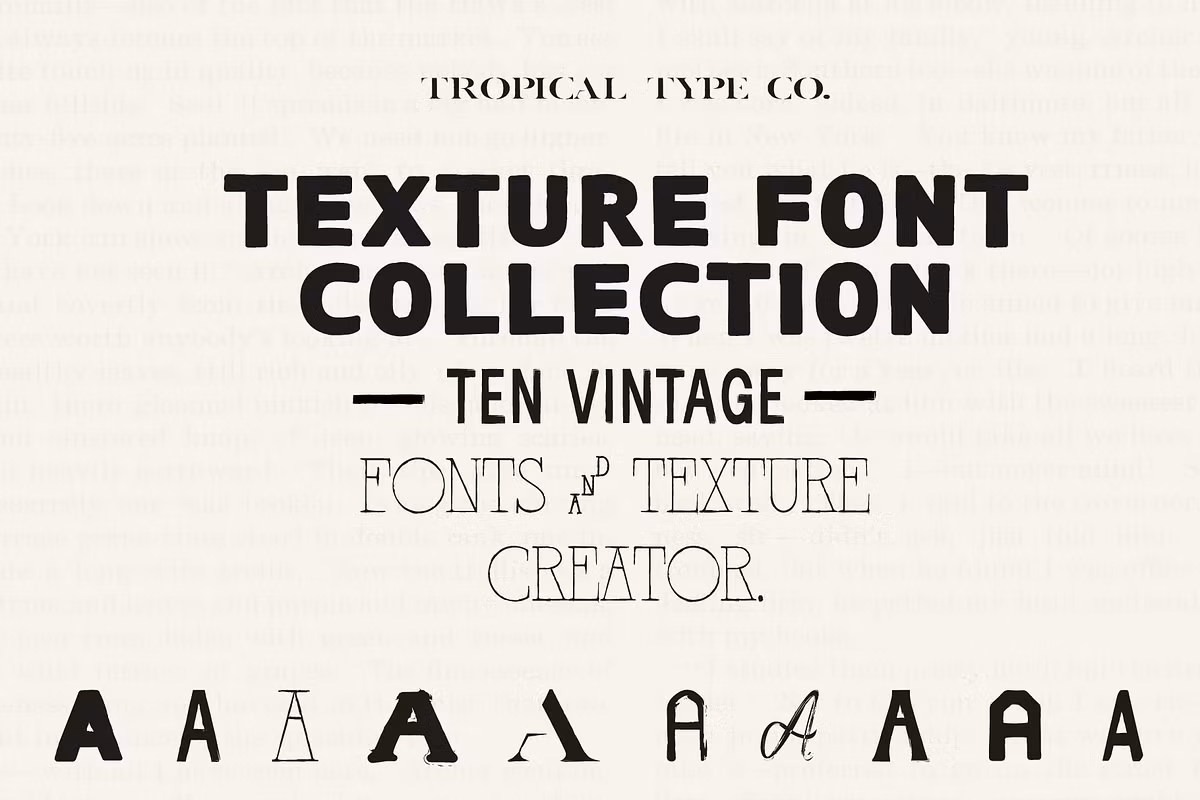
TEXTURE FONT COLLECTION (10 fonts) Free Download
TEXTURE FONT COLLECTION (10 Fonts) Free Download is an extensive and dynamic bundle featuring 10 unique fonts, each designed to add a distinctive texture and style to your design projects. Whether you're working on logos, posters, vintage designs, or branding, this collection offers a variety of options to suit your creative needs, from gritty, distressed textures to clean and polished finishes.
The fonts in this collection are versatile enough to be used for both digital and print projects, giving you the flexibility to create powerful, textured typography for any creative endeavor. Whether you’re designing for a retro brand, a handmade project, or adding character to your visual content, this collection brings you a wide range of styles to experiment with.